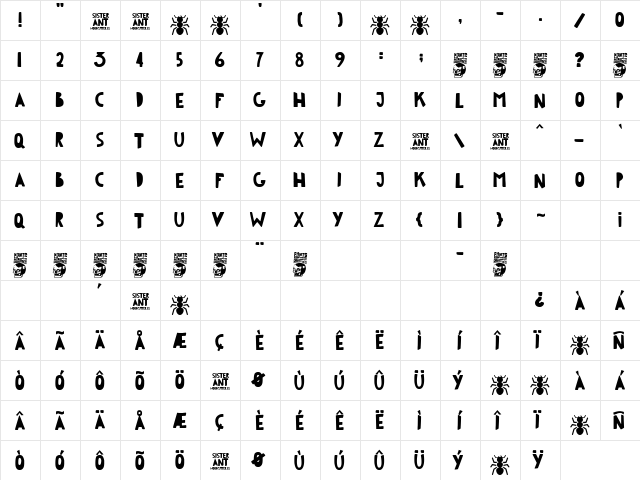
Sister Ant Regular
Regular ·  Woodcutter Manero ·
DesignerWoodcutter Manero
Design Context for Sister Ant Typeface
Sister Ant is a composed and adaptable typeface that performs quietly and consistently across a wide range of design contexts.